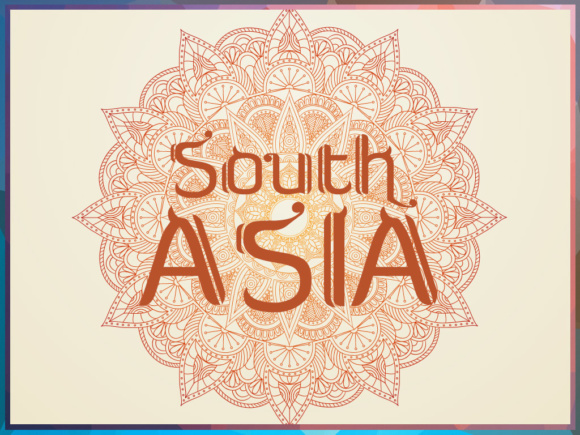
Discover the Exotic Elegance of FTF Semar Poenakawan Font
Are you looking for a font that can add an exotic and elegant touch to your design projects? Look no further than the FTF Semar Poenakawan font, a decorative typeface inspired by the rich cultures of Indonesia. This stunning font is perfect for designers and crafters who want to infuse their work with a unique and captivating aesthetic.
The Inspiration Behind FTF Semar Poenakawan
FTF Semar Poenakawan was inspired by the beautiful Javanese script, which is an integral part of Indonesian culture. The Javanese script, also known as Hanacaraka, is an ancient writing system that originated in Java, Indonesia. It is renowned for its intricate and ornate letterforms, which are steeped in tradition and history.
The creator of FTF Semar Poenakawan font drew inspiration from the elegant and flowing lines of the Javanese script, and transformed them into a modern and decorative font. The result is a typeface that exudes an exotic and elegant feel, perfect for designers who want to add a touch of Indonesian culture to their work.
Key Features of FTF Semar Poenakawan Font
FTF Semar Poenakawan font boasts a range of features that make it an ideal choice for designers and crafters. Some of its key features include:
- Unique and decorative letterforms: Each letterform in FTF Semar Poenakawan is carefully crafted to reflect the intricate and ornate style of the Javanese script.
- Exotic and elegant feel: The font’s elegant lines and flowing curves evoke a sense of exoticism and sophistication, making it perfect for designs that require a touch of refinement.
- Multilingual support: FTF Semar Poenakawan font supports multiple languages, including Indonesian, English, and other languages that use the Latin alphabet.
- Versatile and adaptable: The font can be used in a variety of design projects, from logos and branding to packaging, posters, and more.
Using FTF Semar Poenakawan in Your Design Projects
FTF Semar Poenakawan font is perfect for designers and crafters who want to add a touch of Indonesian culture to their work. Here are some ideas for using this beautiful font:
- Thematic projects: Use FTF Semar Poenakawan to create designs that reflect Indonesian culture, such as posters, brochures, or websites that promote Indonesian tourism, cuisine, or art.
- Branding and logos: Create unique and memorable logos or brand identities that incorporate the exotic and elegant feel of FTF Semar Poenakawan.
- Wedding and event designs: Add a touch of elegance and sophistication to wedding invitations, event posters, or other designs with FTF Semar Poenakawan.
- Packaging design: Use FTF Semar Poenakawan to create eye-catching packaging designs that reflect the exotic and elegant feel of Indonesian culture.
Tips for Getting the Most Out of FTF Semar Poenakawan
To get the most out of FTF Semar Poenakawan font, here are some tips:
- Experiment with font sizes and styles: Try using different font sizes and styles to create visual interest and hierarchy in your designs.
- Pair with complementary fonts: Pair FTF Semar Poenakawan with complementary fonts to create a harmonious and balanced design.
- Use in combination with traditional Indonesian patterns: Combine FTF Semar Poenakawan with traditional Indonesian patterns, such as batik or ikat, to create a unique and culturally-inspired design.
| Font Name | FTF Semar Poenakawan Font |
| Author | Fizzetica.ID |
FTF Semar Poenakawan font is a stunning and decorative typeface that offers a unique and exotic touch to design projects. With its elegant lines, flowing curves, and intricate letterforms, this font is perfect for designers and crafters who want to infuse their work with Indonesian culture. Whether you’re working on thematic projects, branding and logos, or packaging design, FTF Semar Poenakawan is an excellent choice. So why not give it a try and discover the exotic elegance of FTF Semar Poenakawan font for yourself?